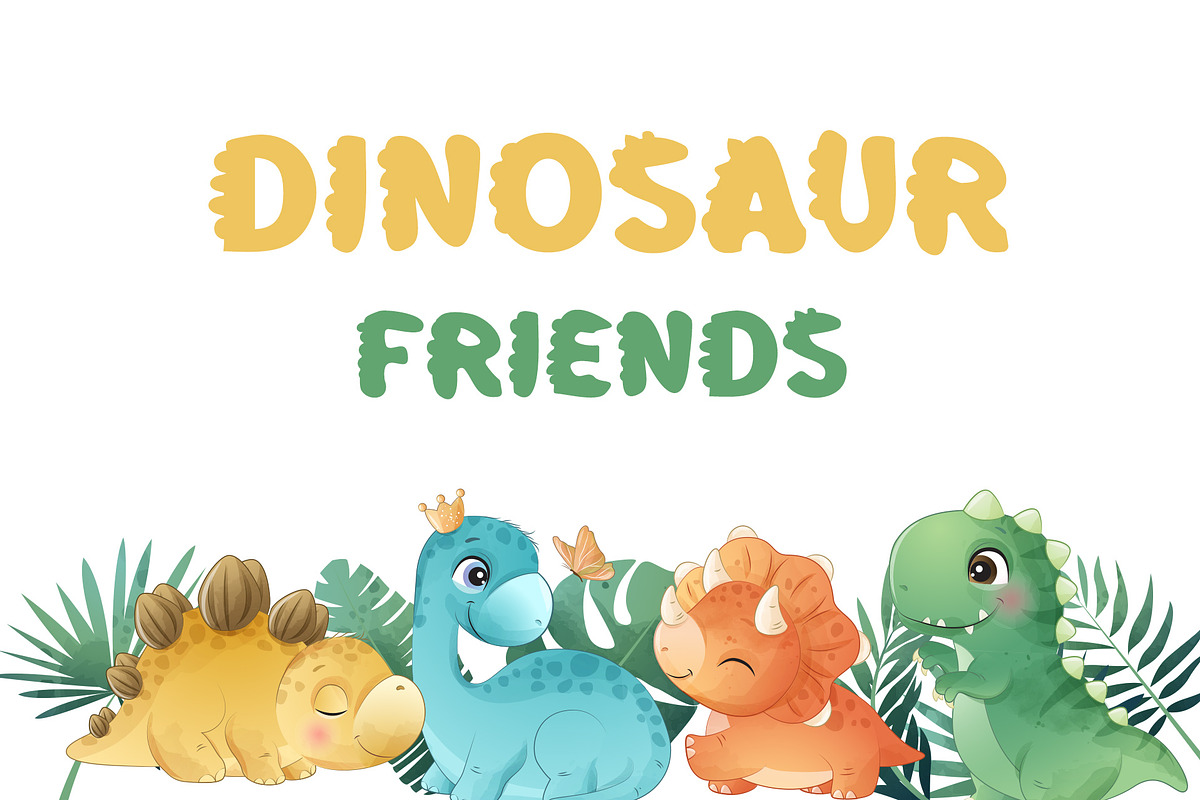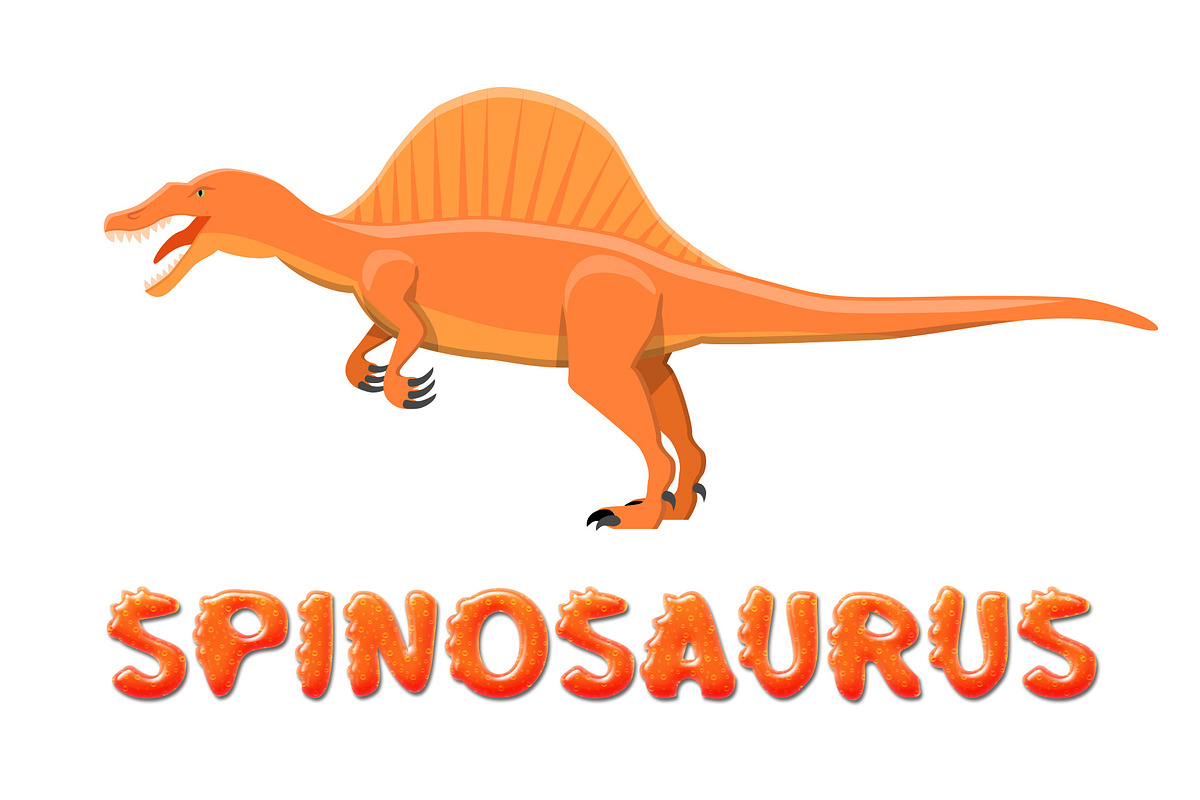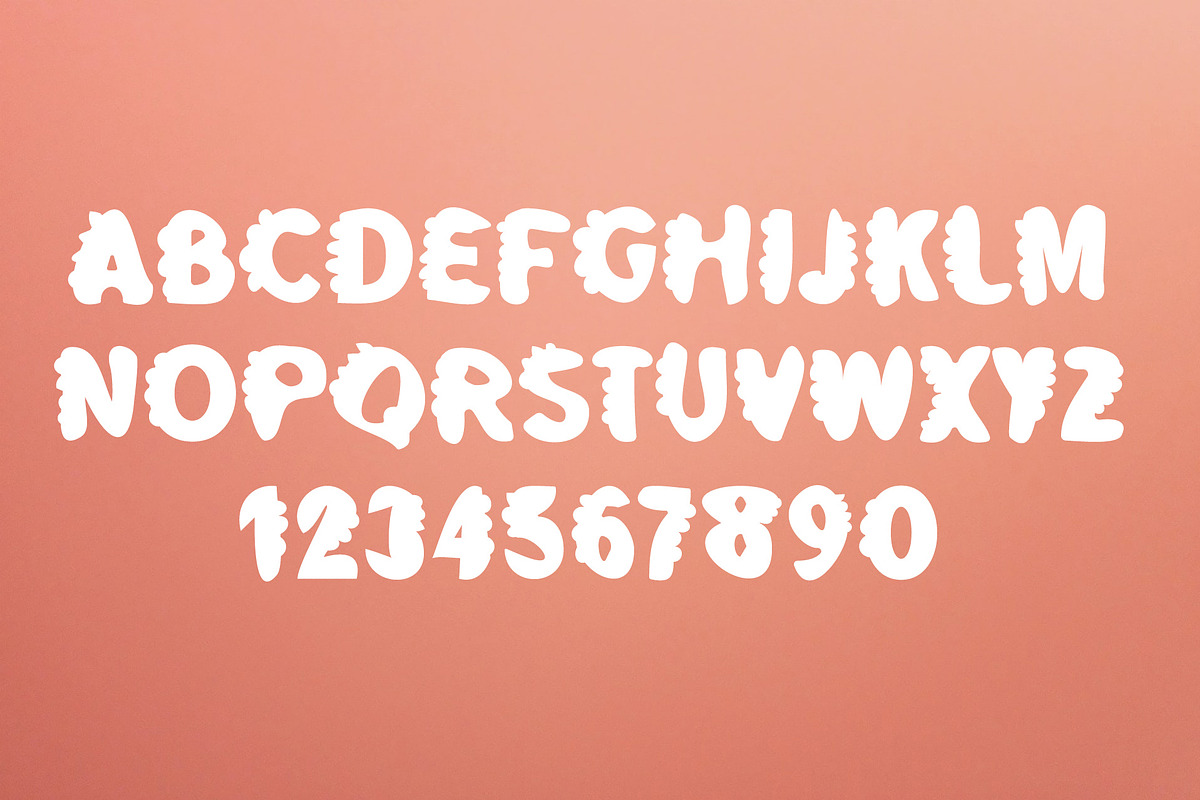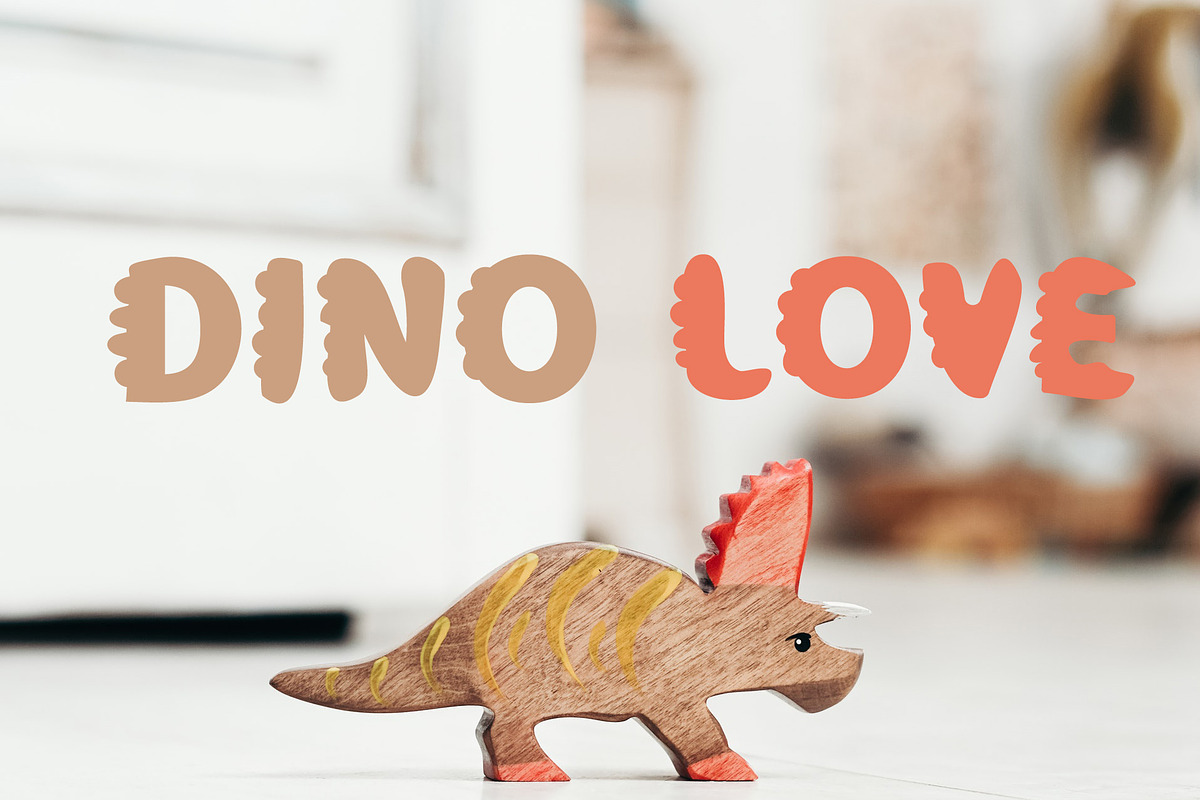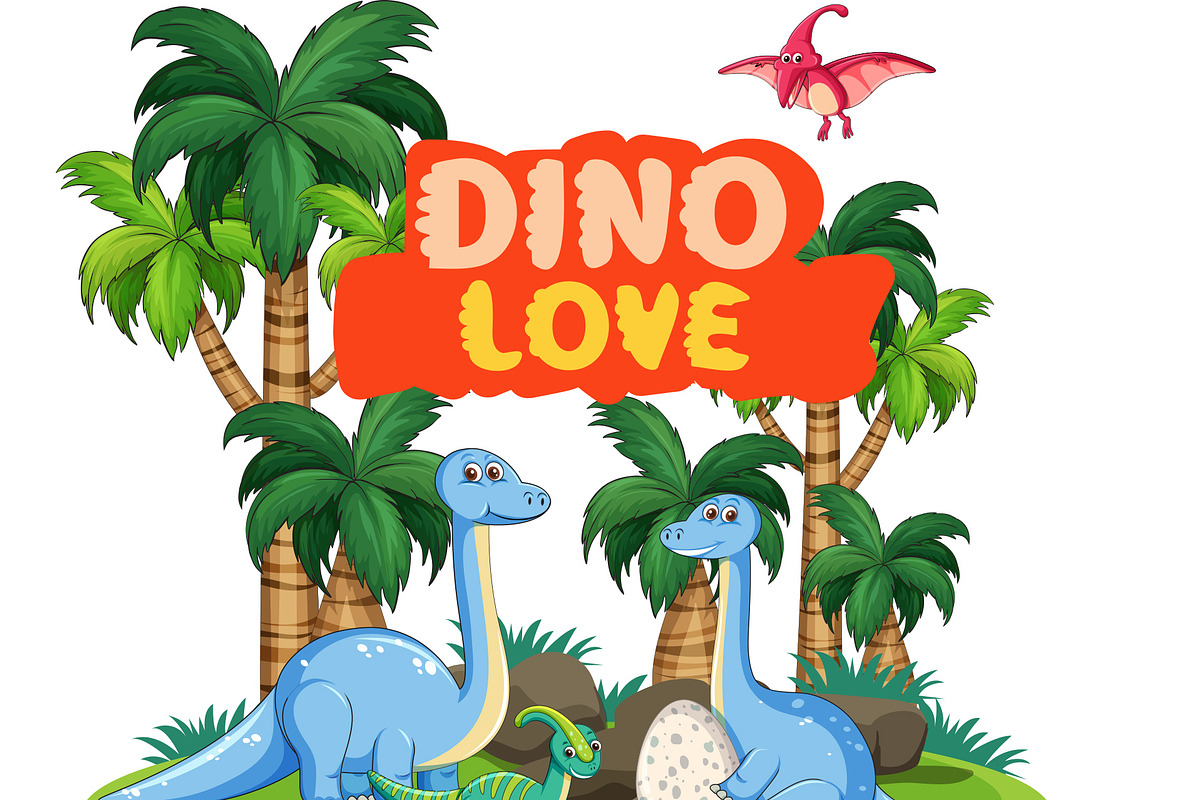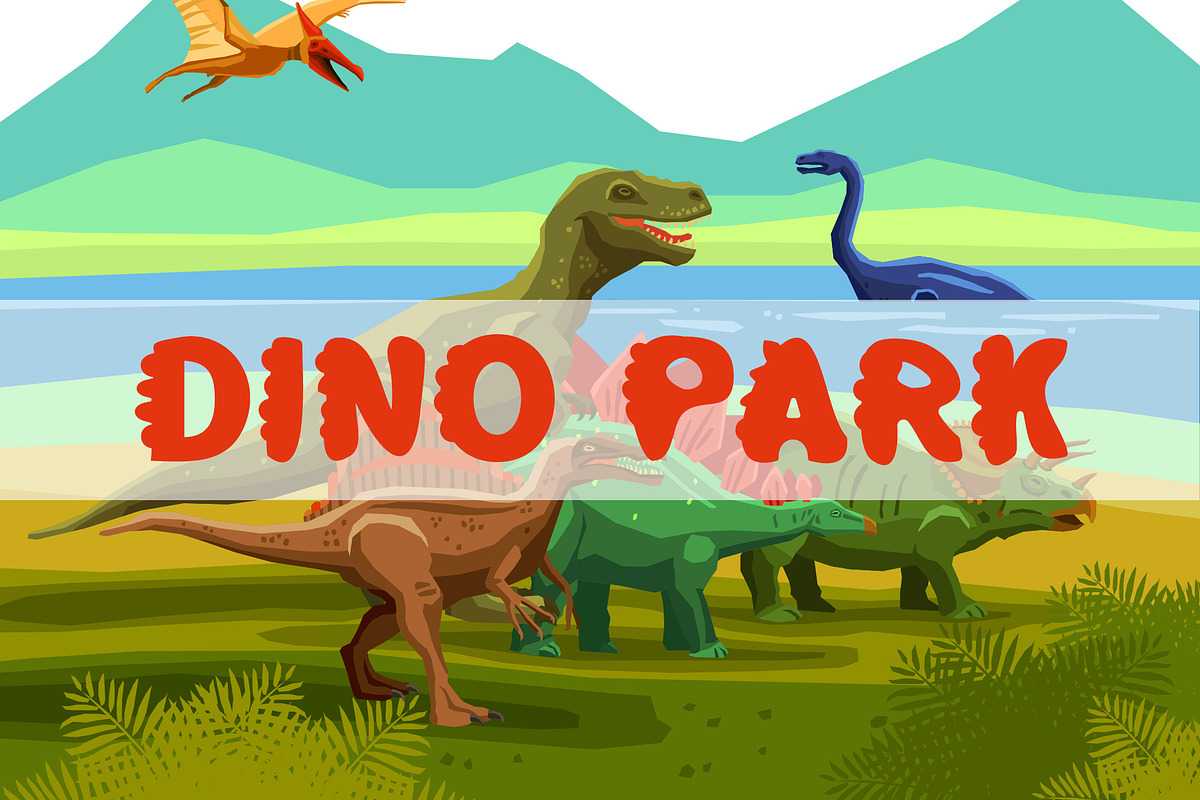
Dino Love - Dinosaur Font
Dino Love - Dinosaur Font.
Dino Love is fun, bold and playful dinosaur font that will add a exquisite and fun look to any kids and school projects! Perfect for prints of children’s textiles, books, greeting cards, wallpaper, baby clothes, paper for scrapbooking, packaging, toys, posters, picture books, children holidays in the style of monsters, dragons, dinosaurs, Dino party. Colorful textured fonts will bring the playful and youthful touch to your designs.